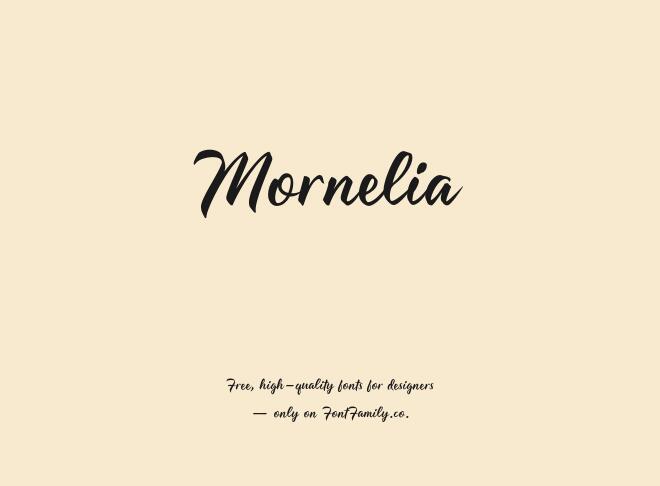
Mornelia Font
Mornelia Font is a modern, elegant script, exuding style and sophistication. Perfectly suited for various design projects, it adds a unique touch to wedding invitations, business cards, logos, and more. Its handwritten style gives it a personal, intimate feel, making it an excellent choice for brands that want to establish a strong, emotional connection with their audience. Mornelia Font stands out from other script fonts with its delicately balanced letterforms and fluid, natural curves. Its modern style pairs well with minimalist design aesthetics, yet it retains a touch of classic elegance that makes it versatile. Choosing Mornelia Font is a surefire way to elevate your design project, ensuring it stands out in today's competitive landscape.